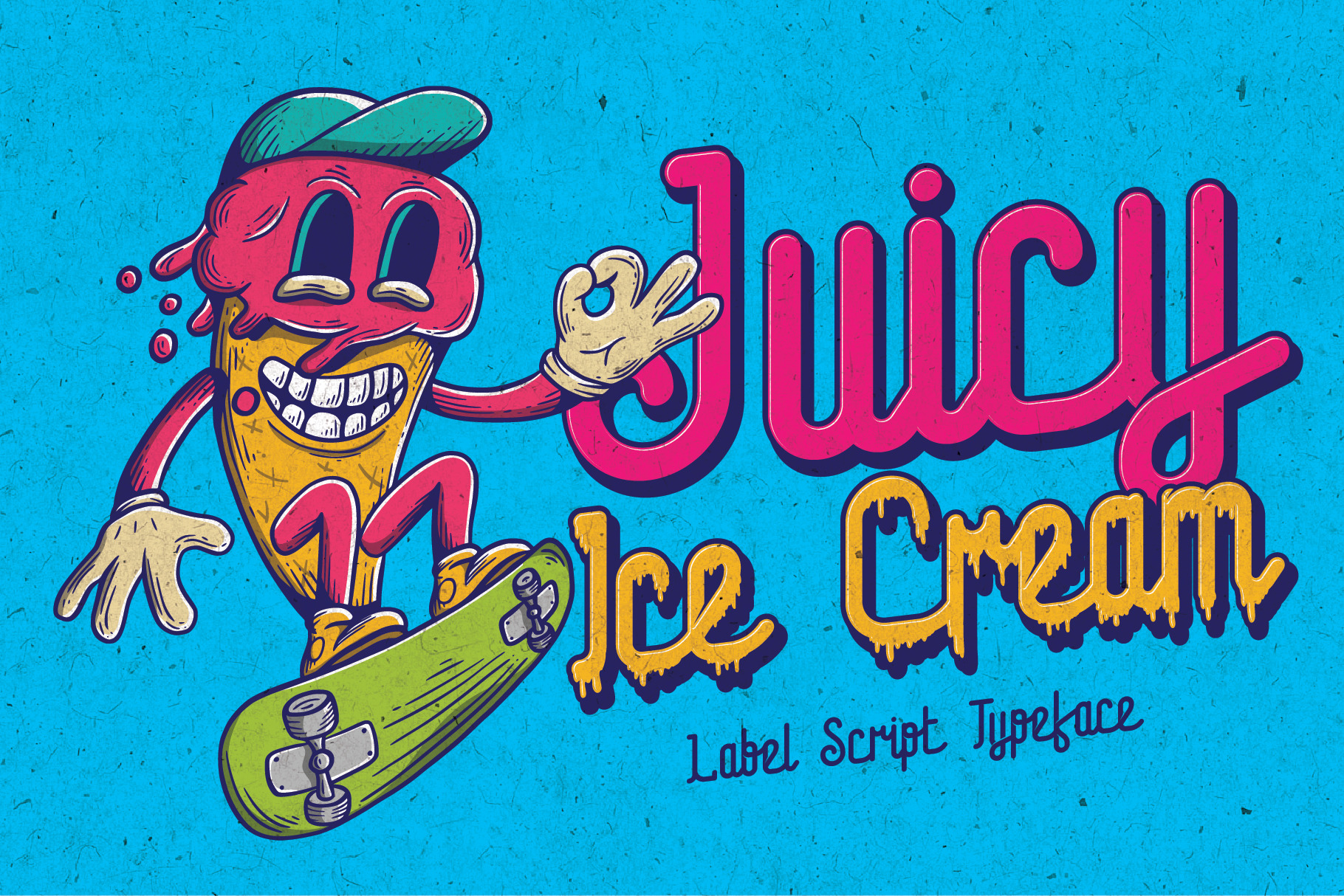
Juicy Ice Cream font + bonus
Introducing a script label font named Juicy Ice Cream. Typeface contains small letters, capital letters, numbers and punctuation characters. Juicy Ice Cream font have three styles, look at screenshots. This font will good viewed on any retro design like poster, t-shirt, label, logo etc.